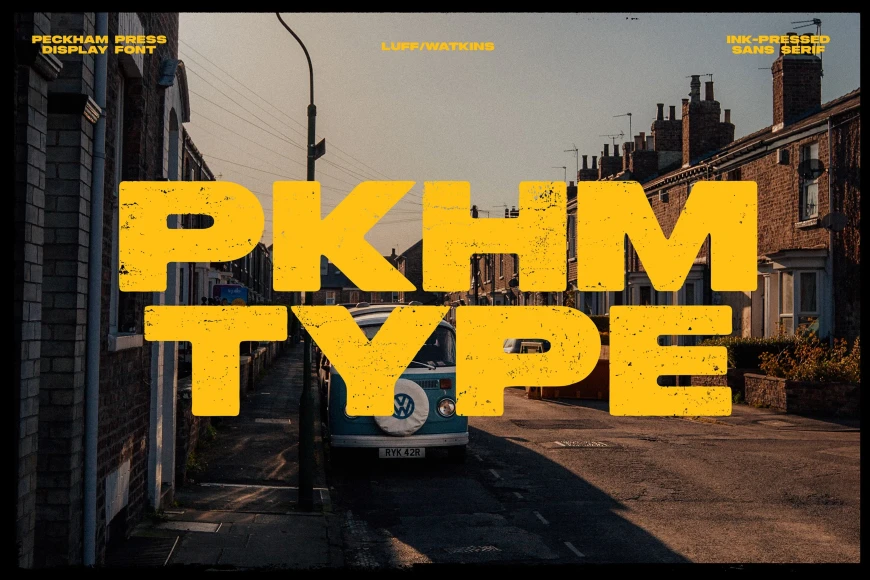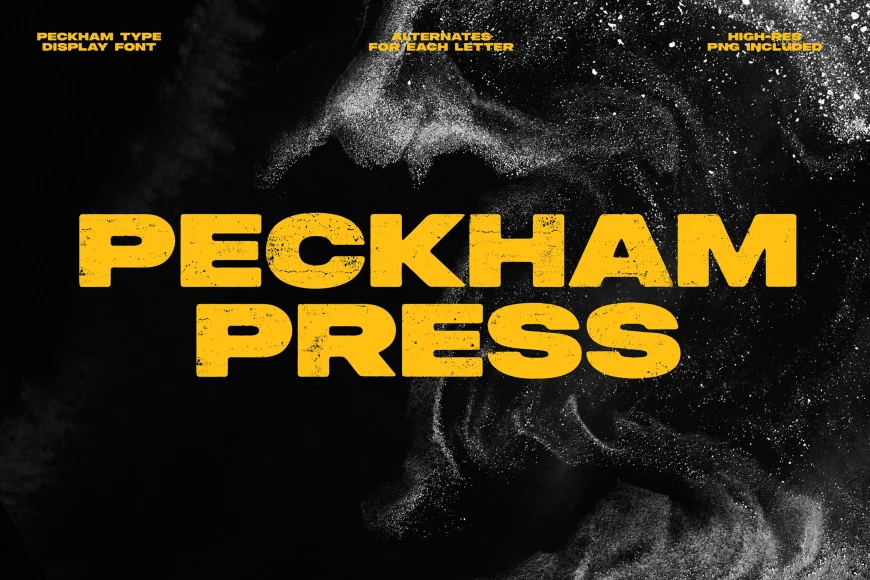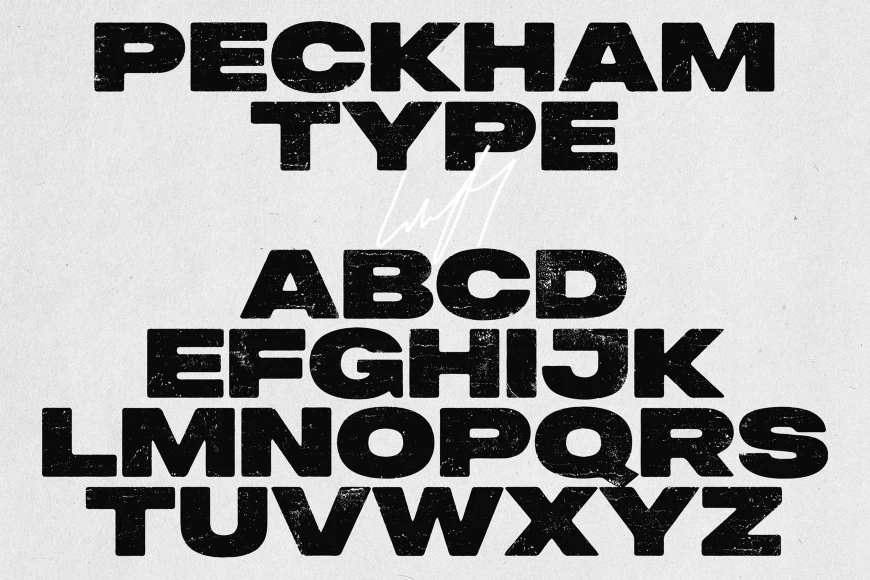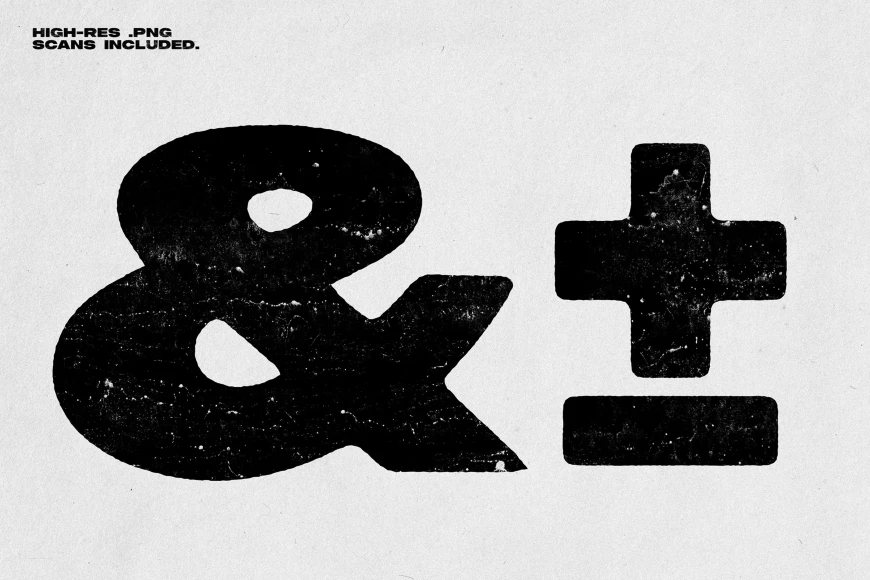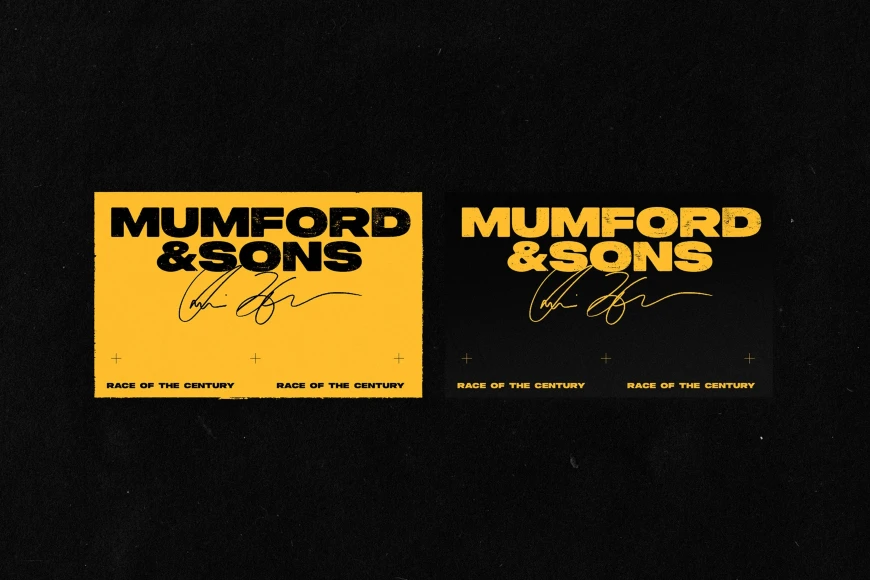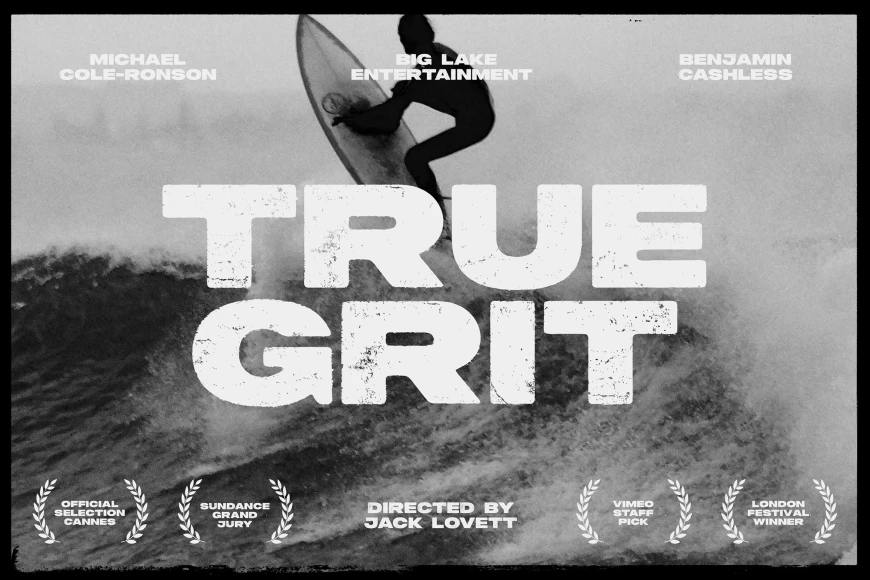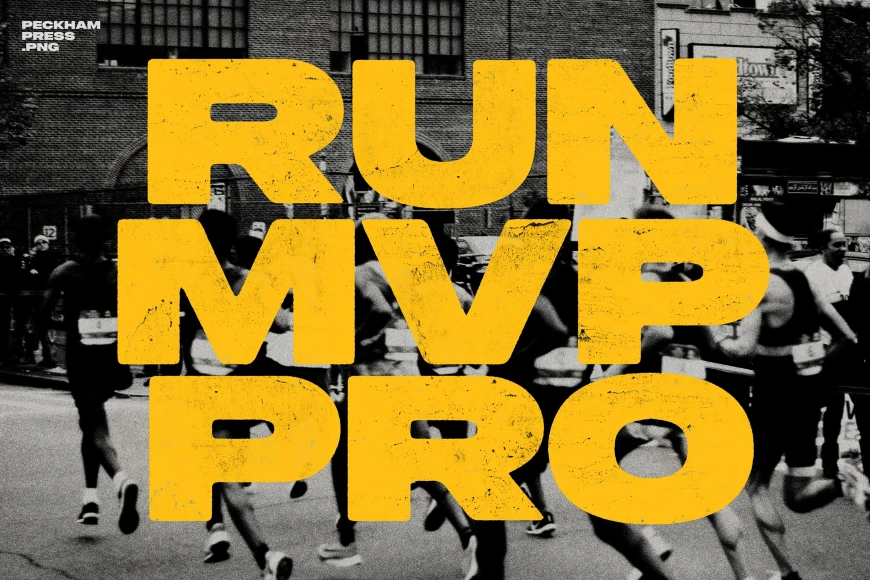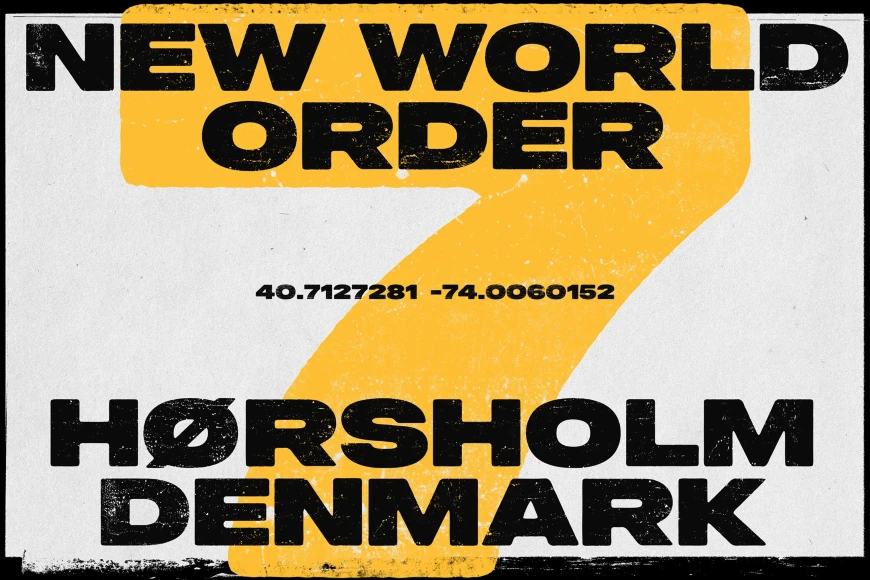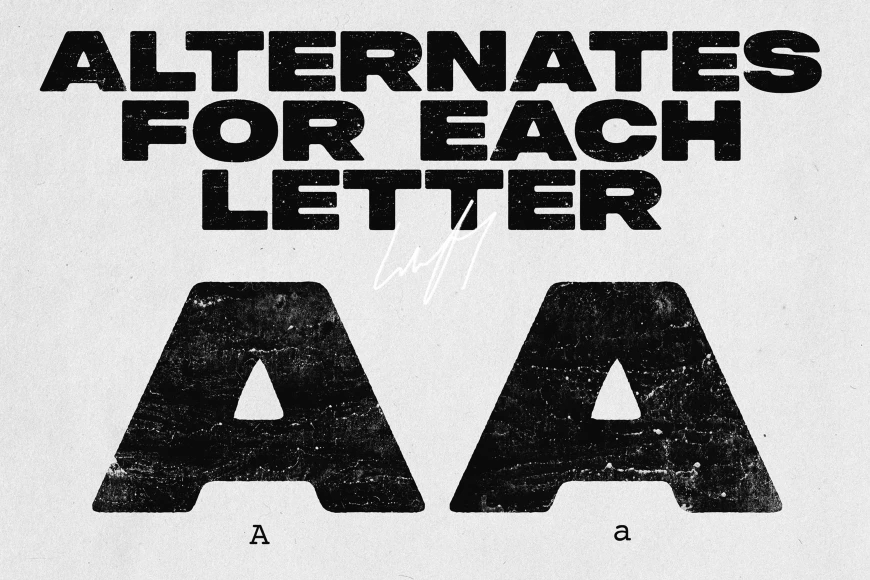
Peckham Press
From Ellen Luff Type Foundry
Peckham Press, from Ellen Luff Type Foundry, is a bold, hand-pressed font family with a raw aesthetic and solid industrial style. The design embodies a spirit of street culture, with its defiant shapes, rough edges, and unadulterated imperfections. These texture-rich typefaces are handmade with two options, with original nicks and grit. Peckham Press is designed for creating strong, eye-catching, and authentic statements, such as those found on event posters, film titles, book covers, and magazine spreads.
Designed by Ellen Luff